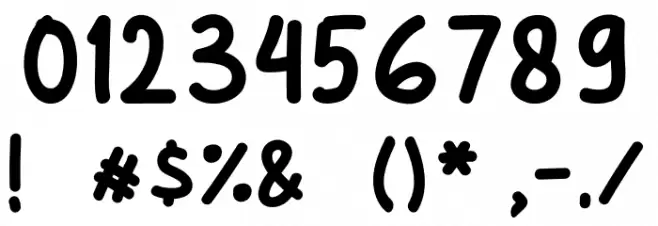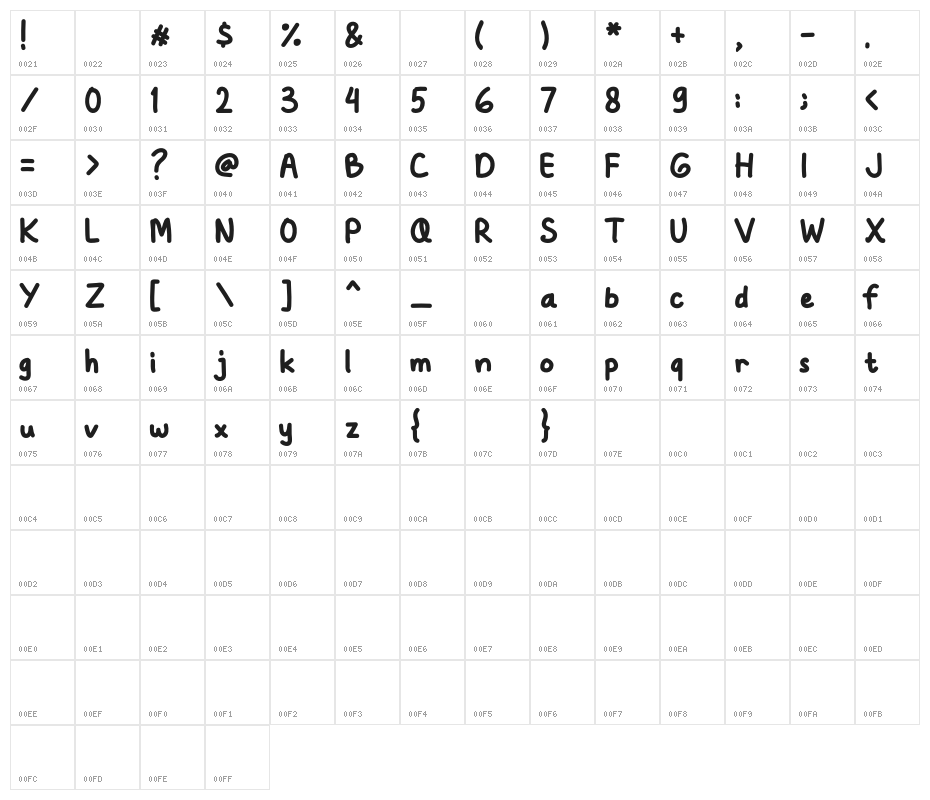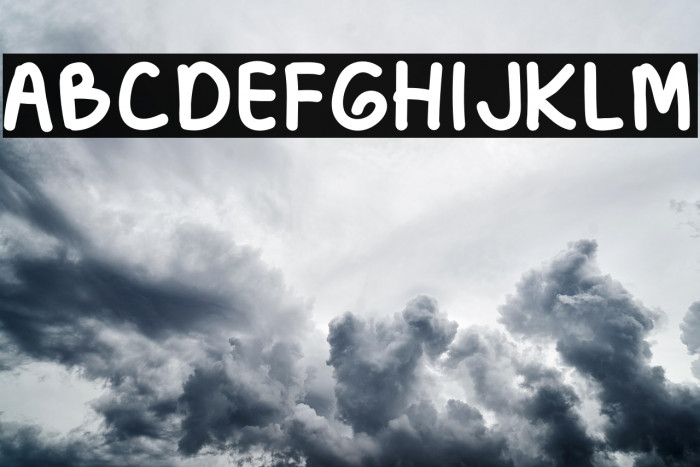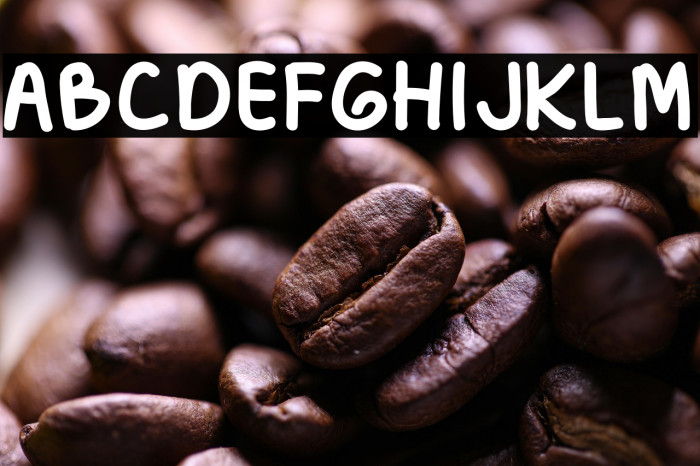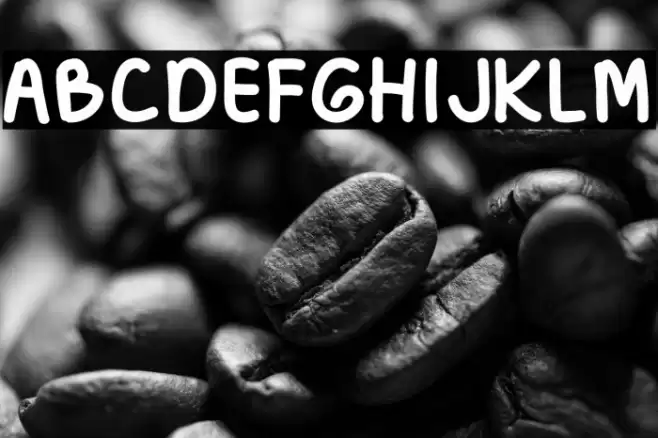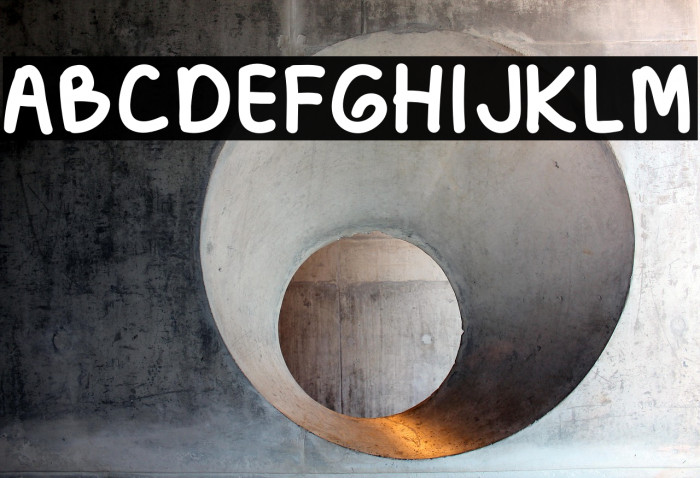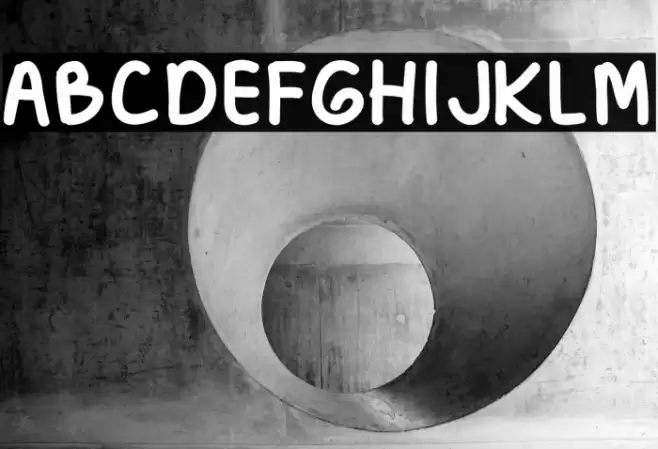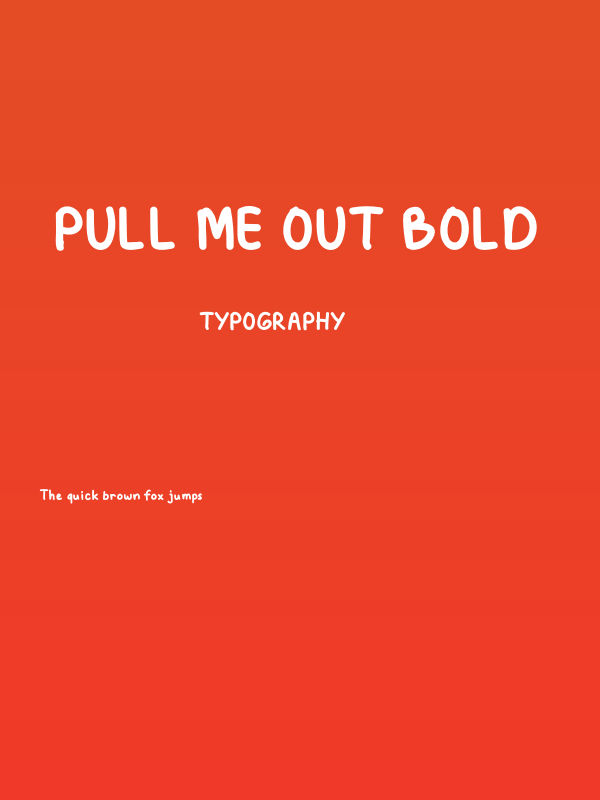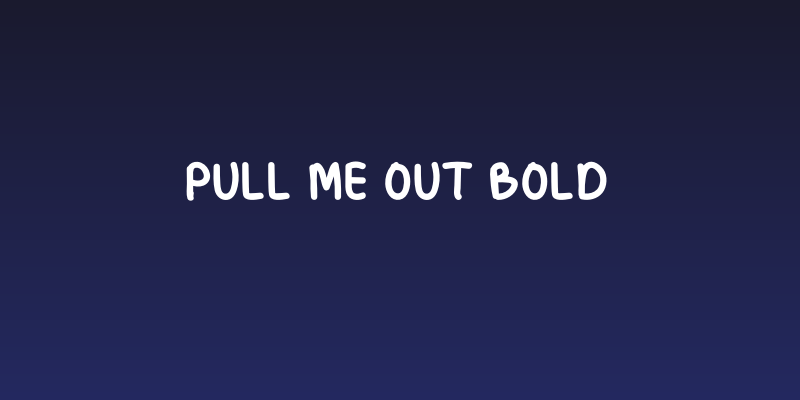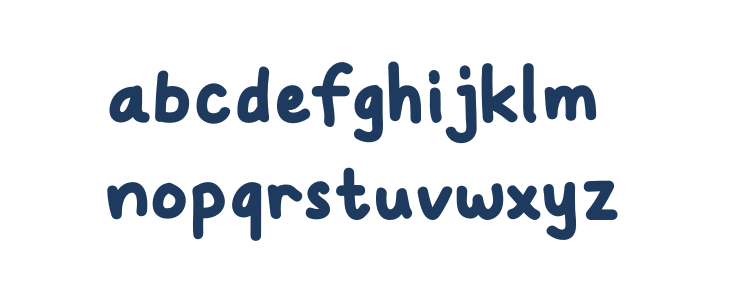
Pull Me Out Bold Font
Pull Me Out Bold Description
This playful and bold font features rounded, hand-drawn characters that exude a friendly and approachable vibe. The letters are thick and slightly irregular, giving them a whimsical and informal appearance. The uppercase and lowercase letters maintain a consistent style, with the uppercase being slightly larger and more pronounced. Numbers and special characters are designed to match the playful aesthetic, making them suitable for a variety of creative projects. The font's overall style is casual and fun, perfect for designs that aim to convey warmth and personality.